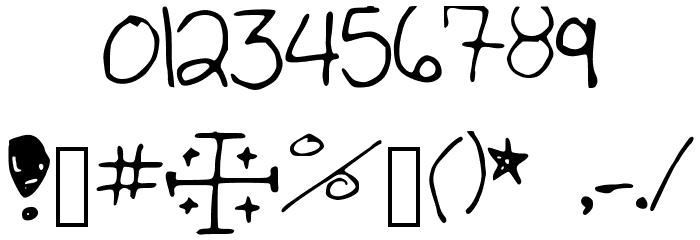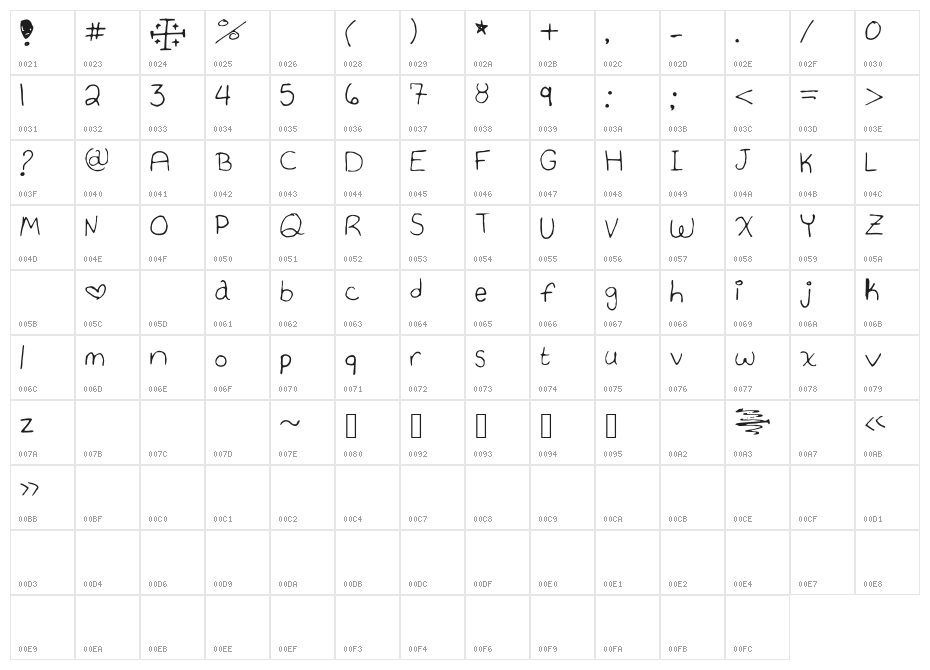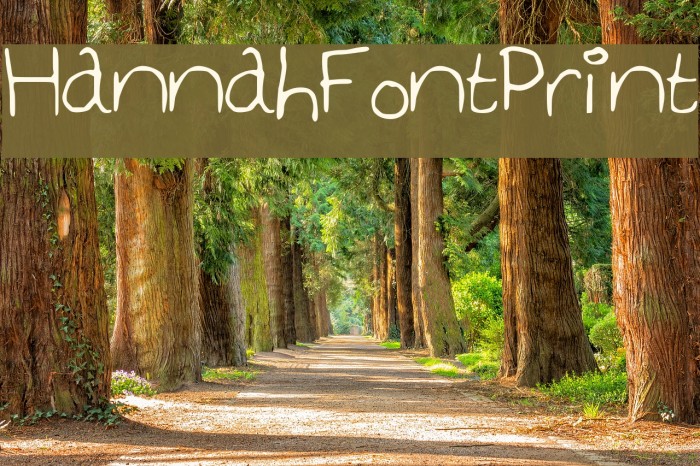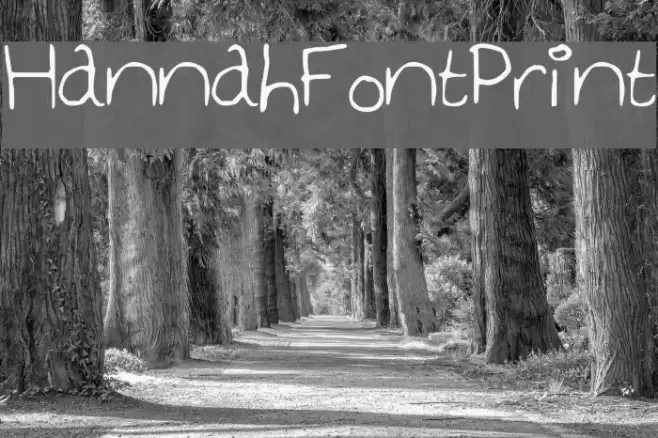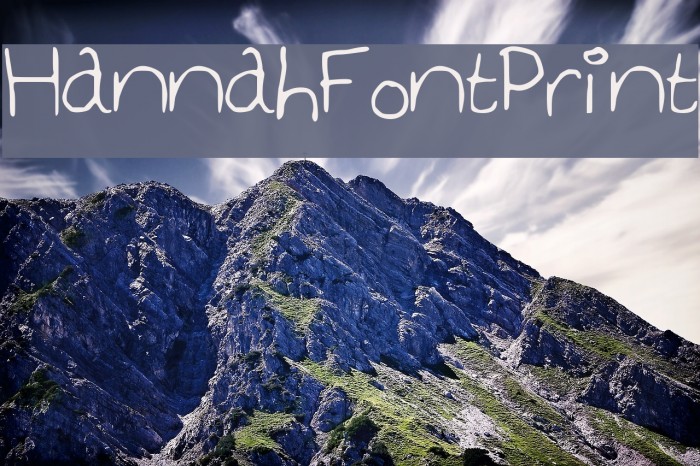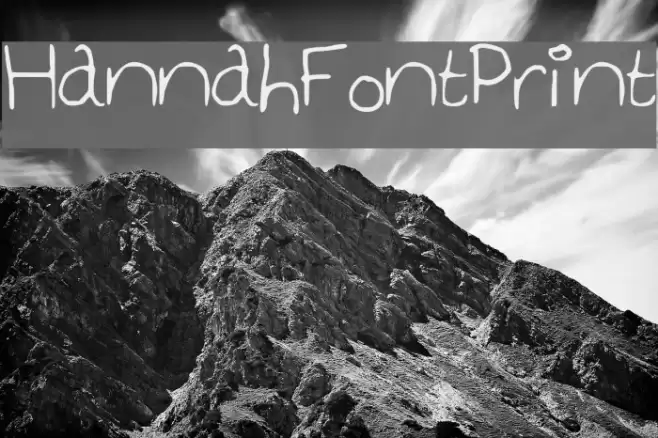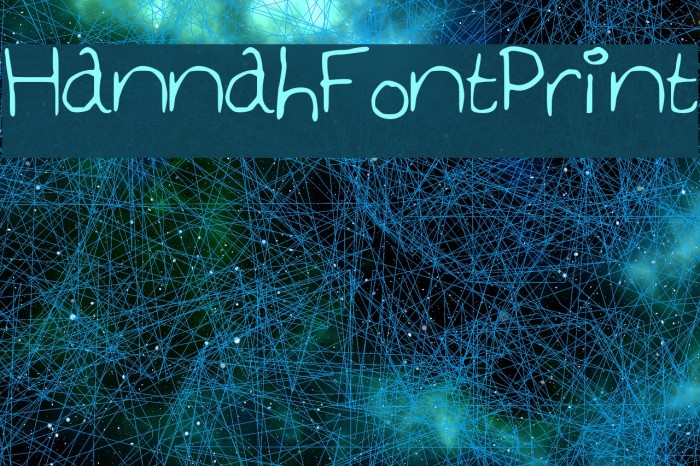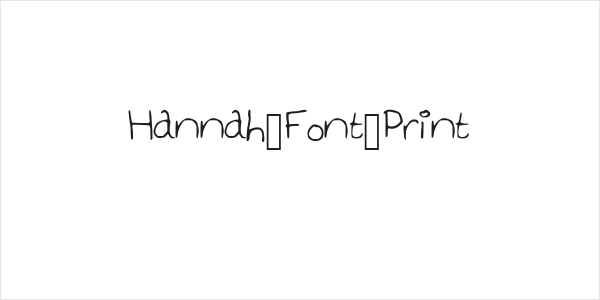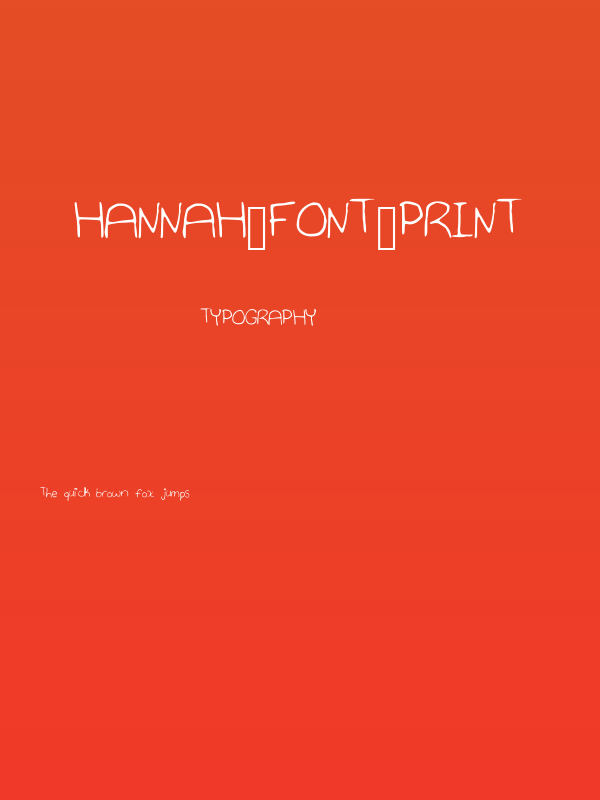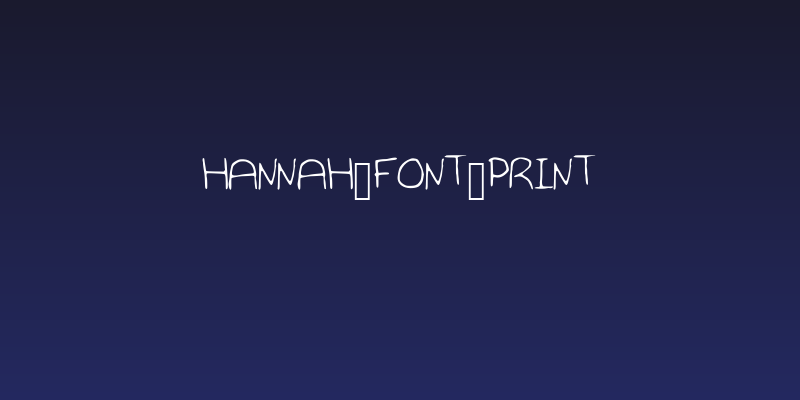
Hannah_Font_Print Font
Hannah_Font_Print Description
This playful and whimsical font features a hand-drawn style with irregular, organic shapes that give it a casual and friendly appearance. The uppercase and lowercase letters are distinct, with a slightly uneven baseline that adds to its charm. The numerals and special characters maintain the same playful aesthetic, making it versatile for creative projects. The strokes are consistent in width, providing a uniform look while retaining a hand-crafted feel. This font is perfect for projects that require a personal touch, such as invitations, greeting cards, or children's book illustrations.
| Overall Style | Whimsical |
| Use Case | Creative designs, personal projects, informal text. |
| Proposed Projects | Ideal for invitations, greeting cards, children's books, and creative designs. |